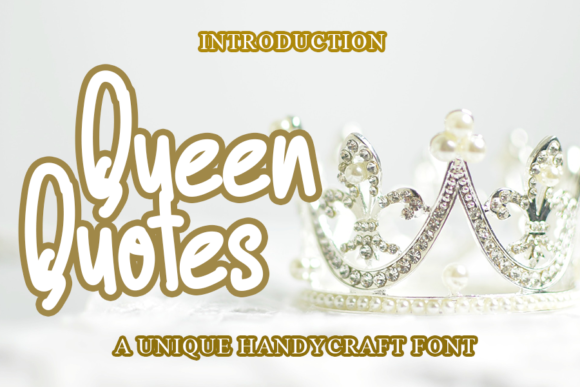
Introducing Queen Quotes: The Font That Emanates Majesty and Grace
In a digital realm teeming with myriad fonts, Queen Quotes emerges as a radiant gem, captivating the hearts and imaginations of discerning designers. Its impeccable script strokes, meticulously crafted by the renowned merge354, exude an aura of elegance and refinement, making it the perfect adornment for your creative endeavors.
Queen Quotes is not merely a font; it is an expression of exquisite taste and unwavering confidence. Its versatile nature lends itself effortlessly to a captivating array of digital designs, from sleek business websites to enchanting greeting cards.
With Queen Quotes, your creations will command attention and leave an indelible mark on your audience. Its whimsical loops and elegant flourishes evoke a sense of timeless charm, while its modern undertones ensure its relevance in today's digital landscape.